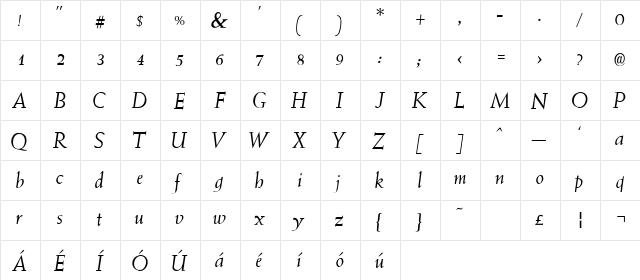
Yardstick Italic
Design Context for Yardstick Typeface
Yardstick is a composed and adaptable typeface that performs quietly and consistently across a wide range of design contexts. Its italic angle brings a sense of urgency and motion to the letterforms.
Pro Tip: Use Yardstick for emphasis, pull quotes, and subheadings where its slanted energy can add rhythm to the layout.